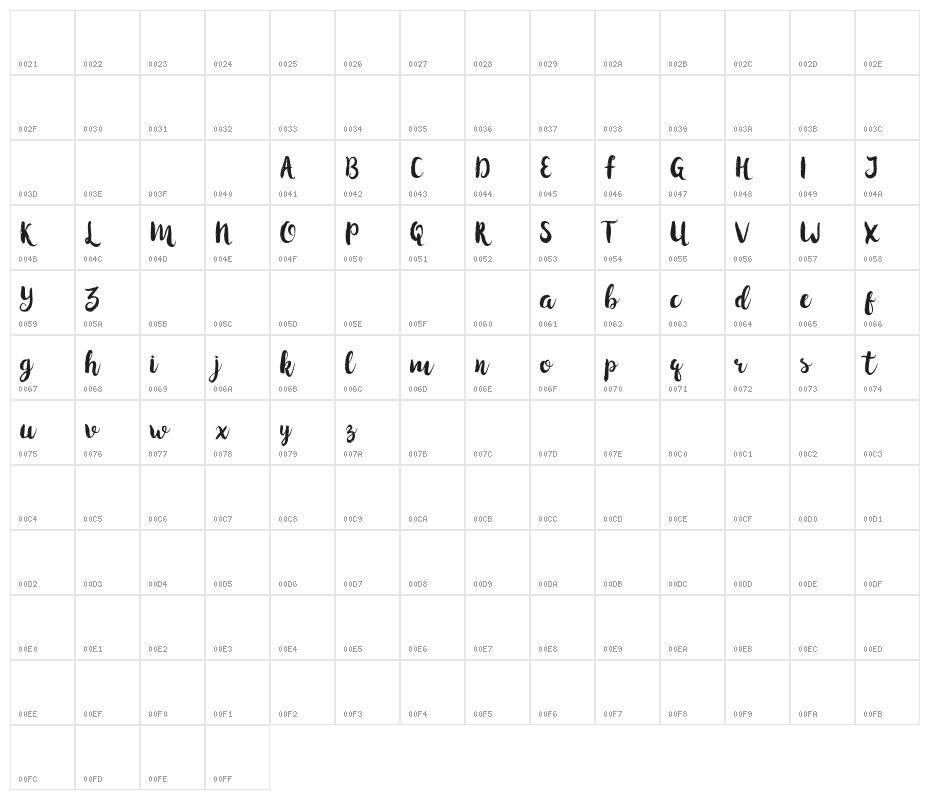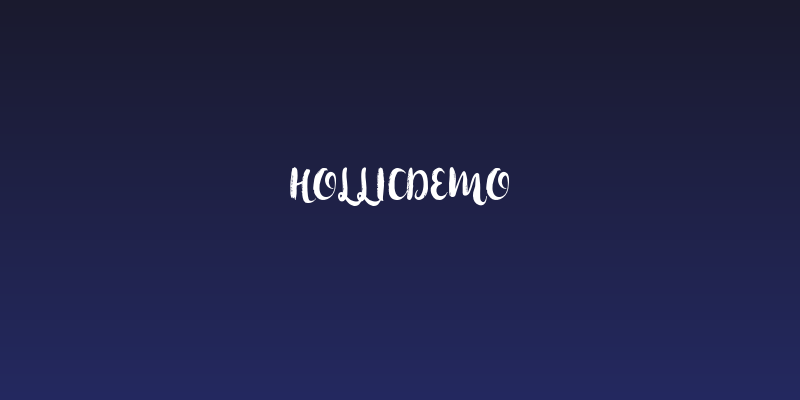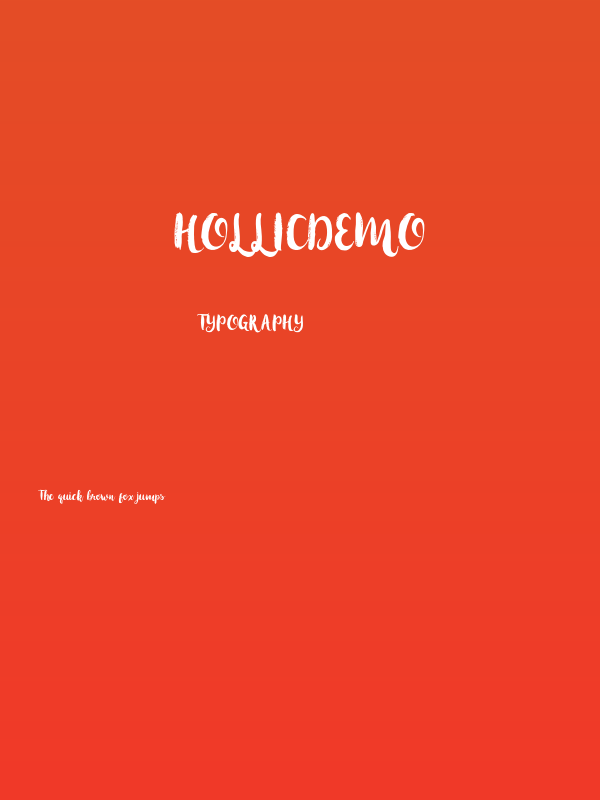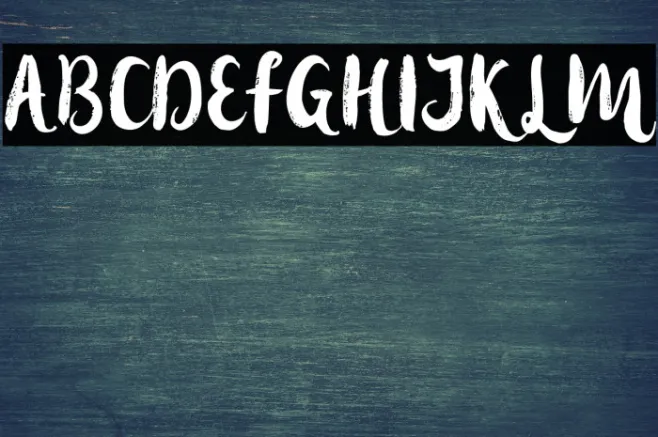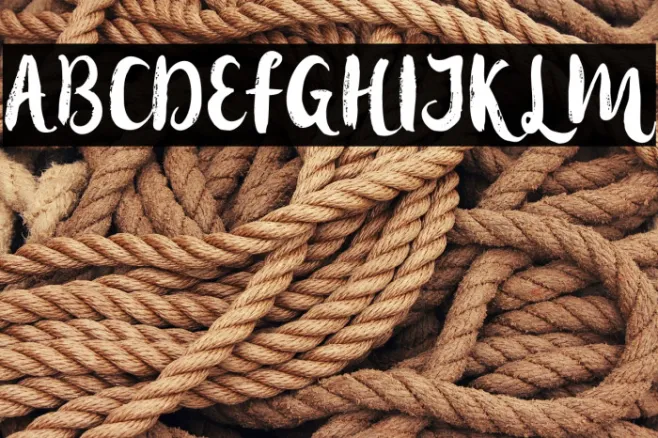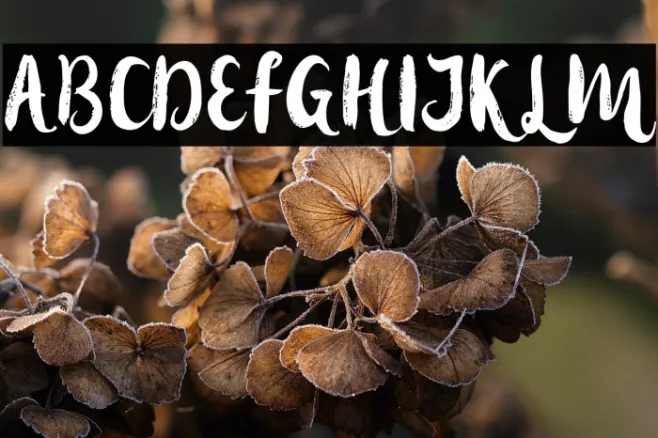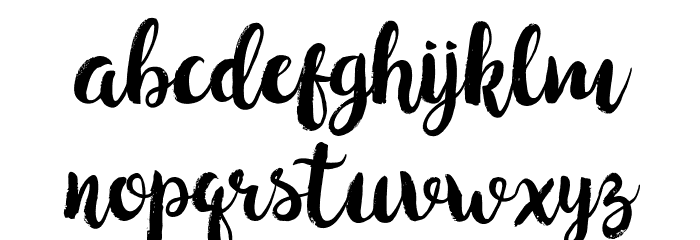
hollicdemo Font
hollicdemo Description
This font features a bold, brush script style with a hand-painted appearance. The letters are characterized by their fluid strokes and dynamic curves, giving a sense of movement and energy. The uppercase letters are bold and prominent, while the lowercase letters maintain a consistent flow, enhancing the handwritten aesthetic. The texture of the strokes suggests a natural, artistic feel, reminiscent of calligraphy. The overall design is expressive and lively, making it suitable for creative and informal applications. The font's unique style is ideal for projects that require a personal touch or artistic flair.
| Proposed Projects | Ideal for greeting cards, posters, branding, and artistic projects that require a personal touch. |